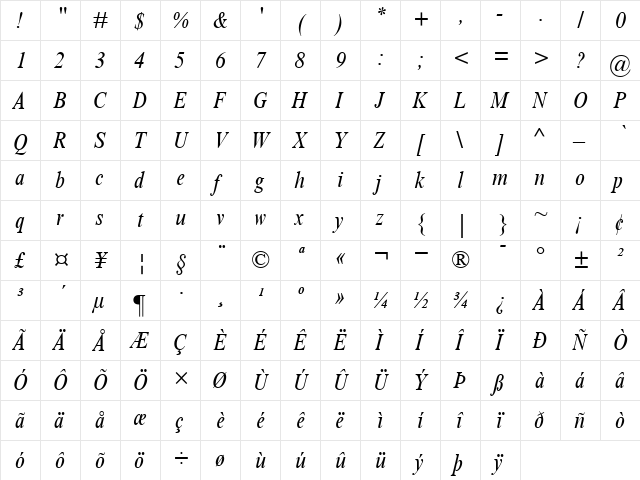
TimesNewRomanMT-Condensed RomanItalic
Design Context for TimesNewRomanMT-Condensed Typeface
TimesNewRomanMT-Condensed is a composed and adaptable typeface that performs quietly and consistently across a wide range of design contexts. The slanted form adds forward momentum and visual energy. The condensed width makes it efficient for tight spaces without sacrificing legibility.